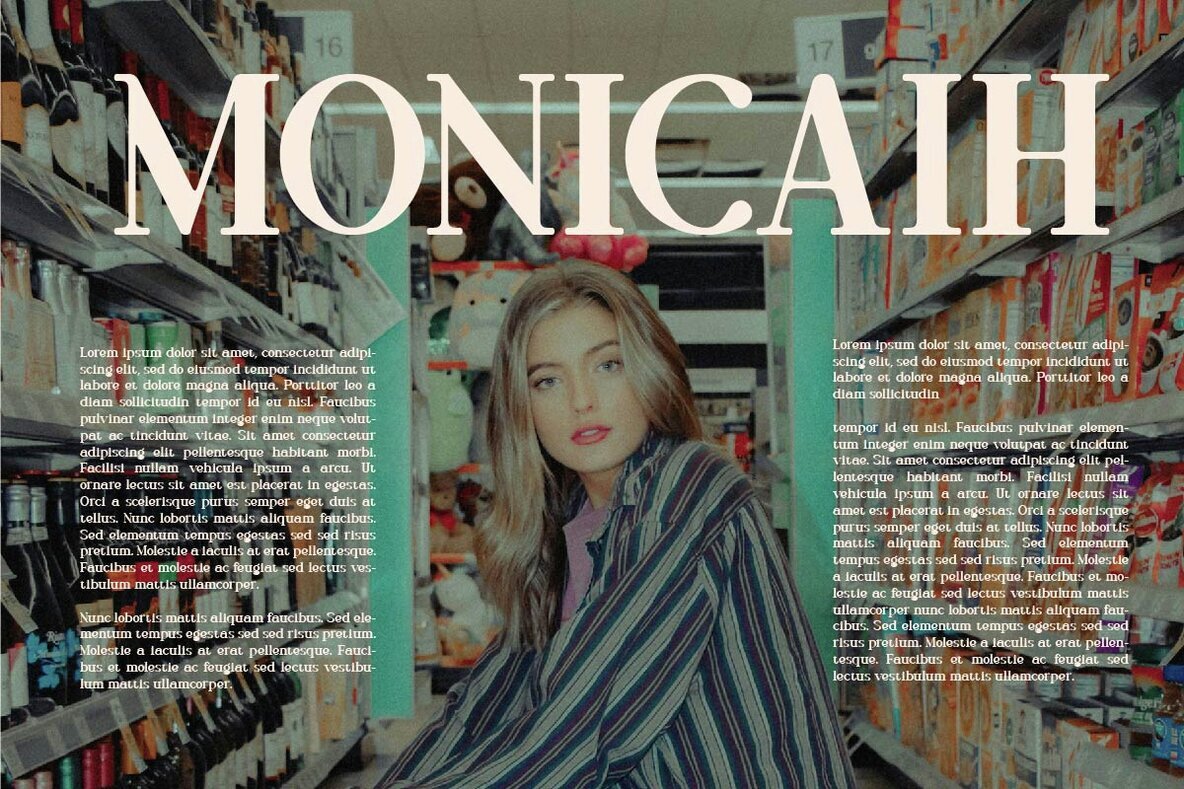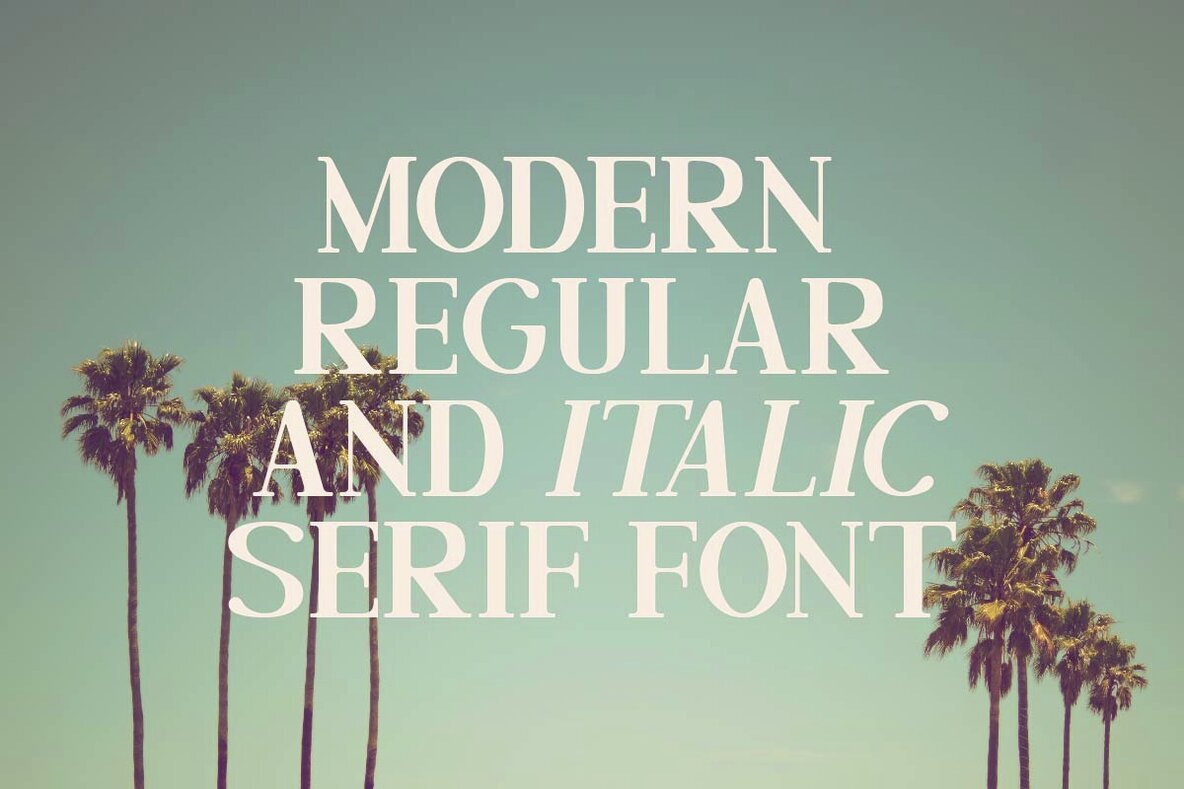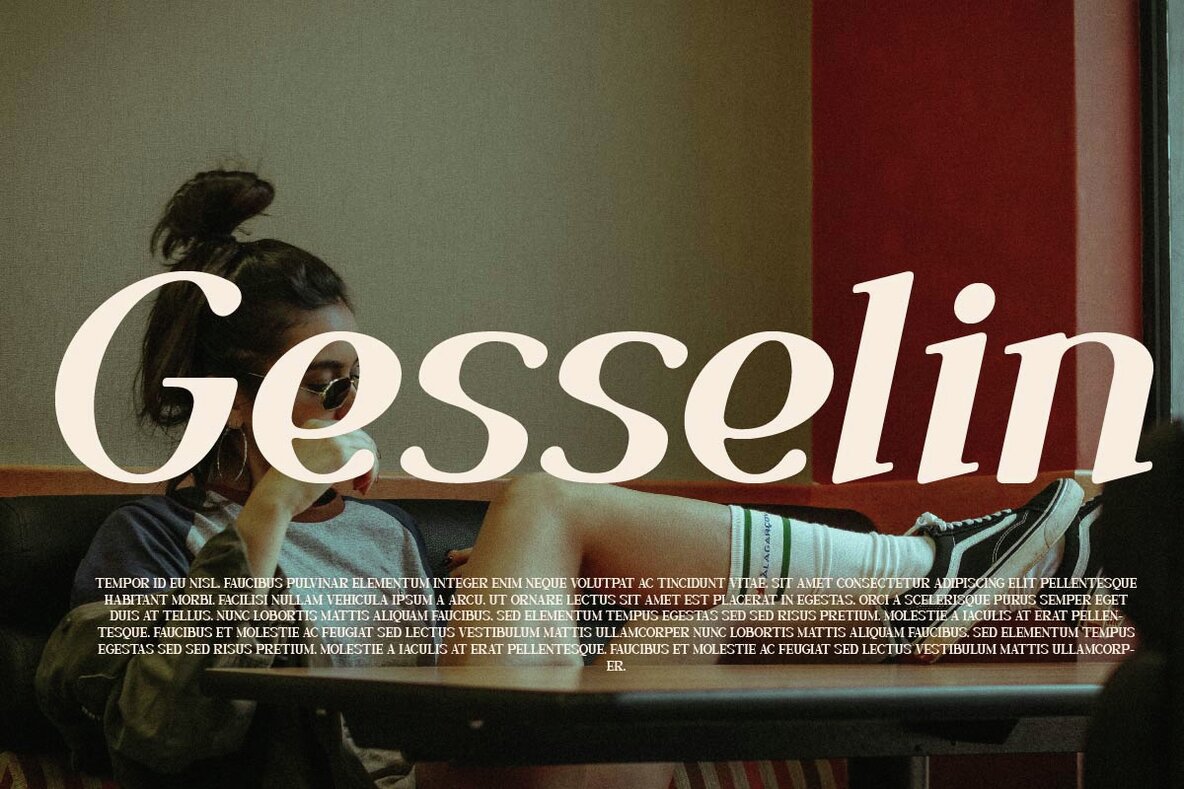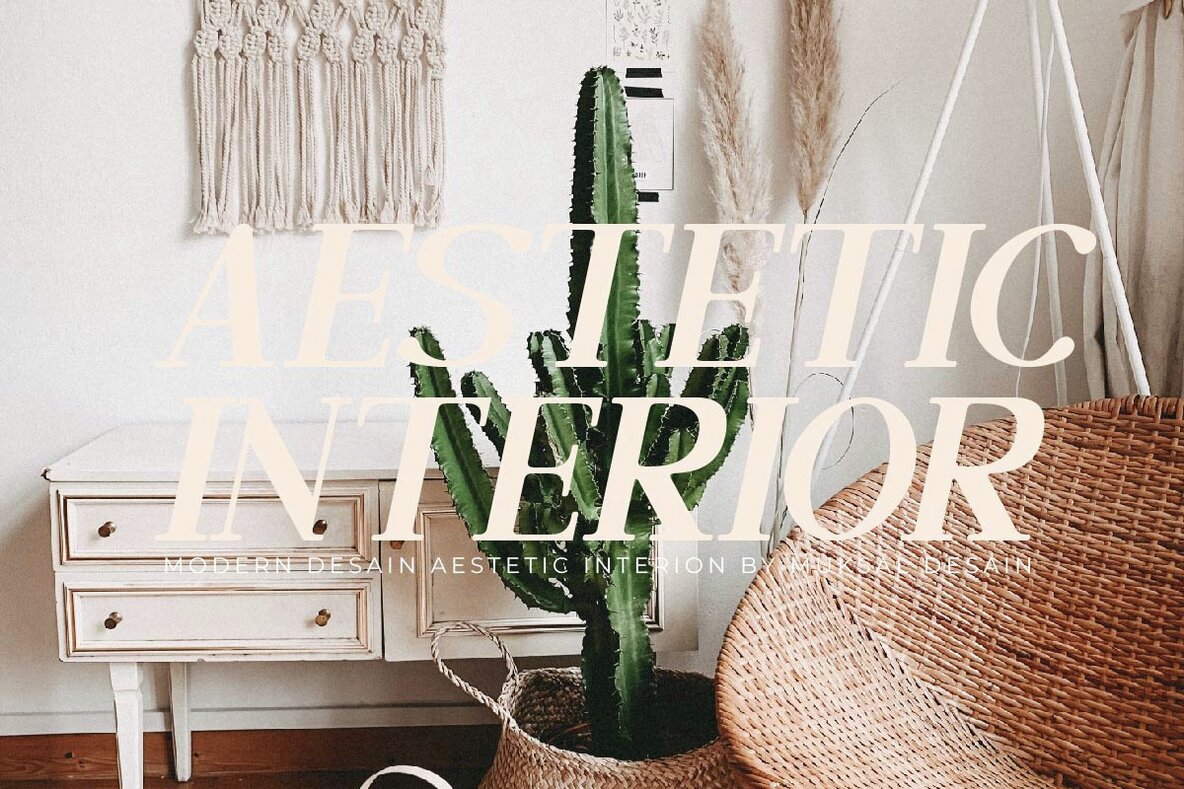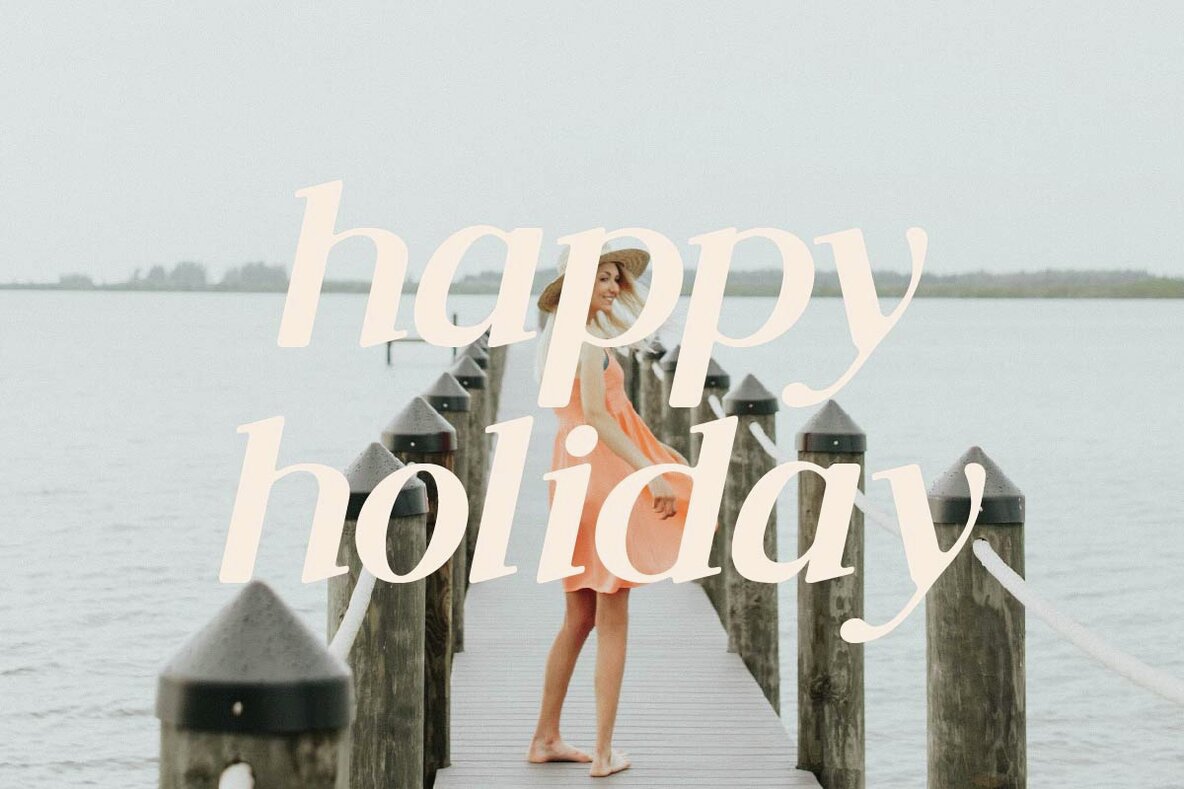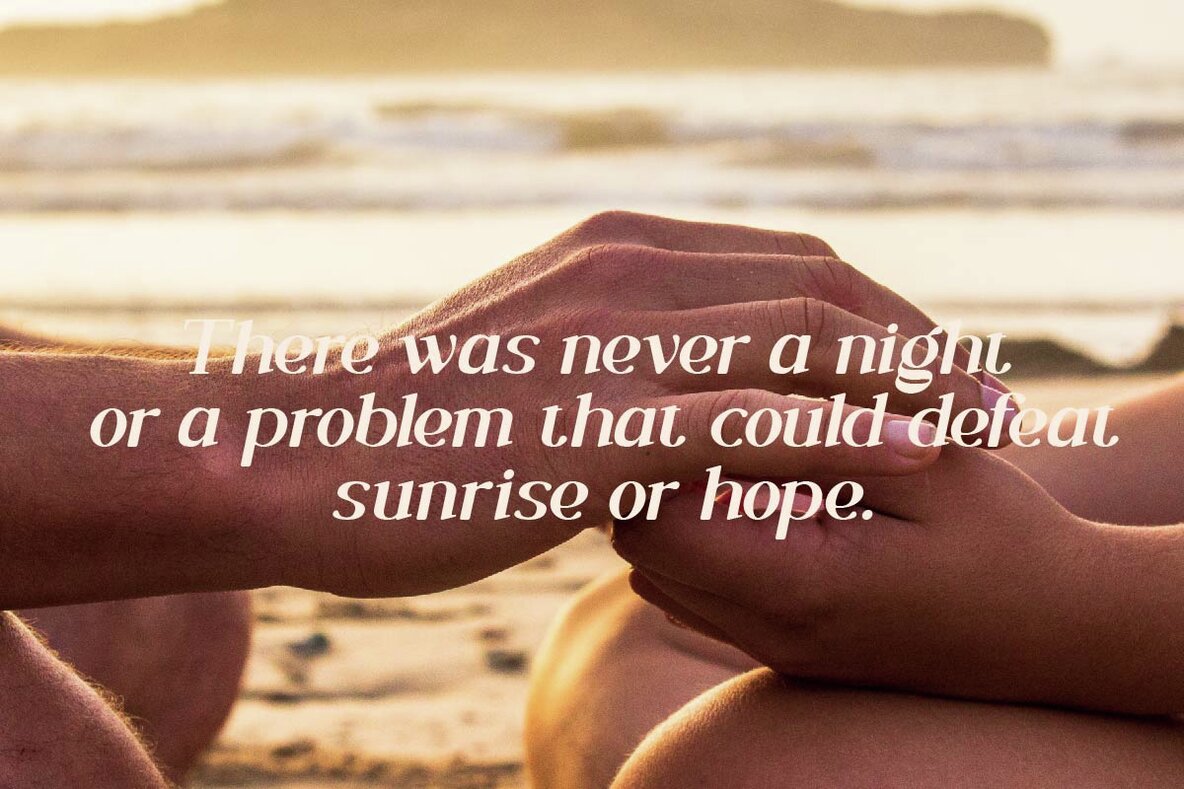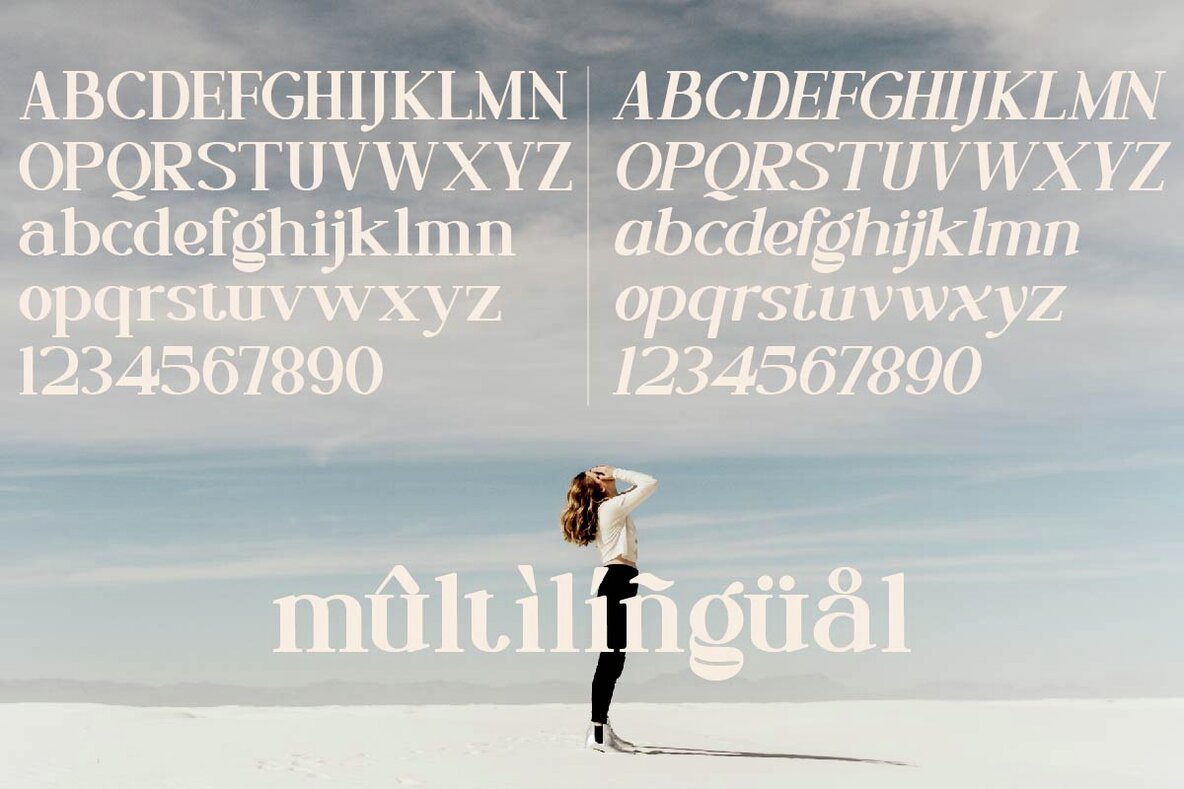
Cameuron Font
"Cameuron" is a modern serif font that offers both regular and italic styles, seamlessly blending classic and contemporary elements. Its refined and proportionate serifs exude elegance while maintaining a modern touch, making it versatile for various design projects. This font is ideal for logo branding, especially suited to themes of femininity, modernity, retro, or vintage styles, adding grace and innovation to your work.Cameuron: Modern Serif with Classic Elegance